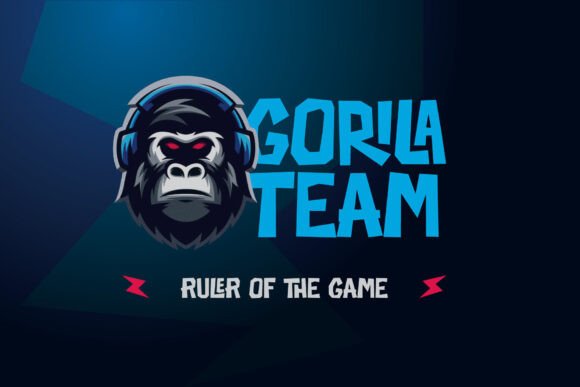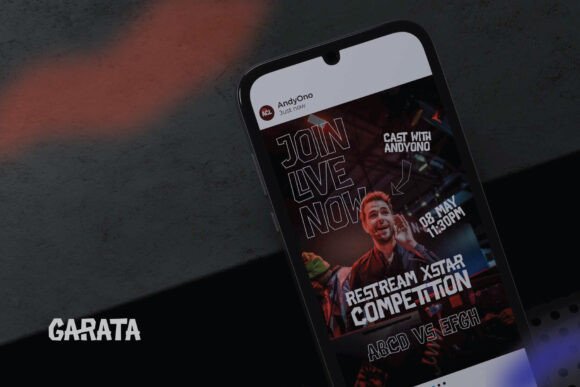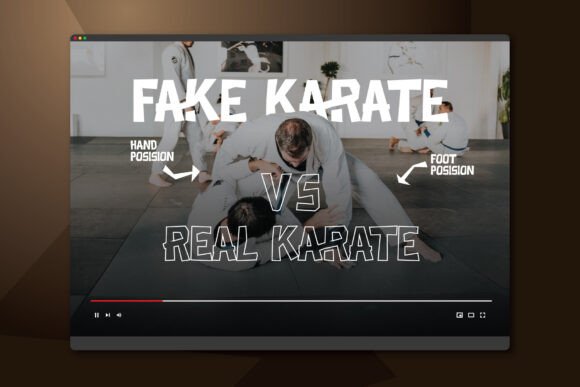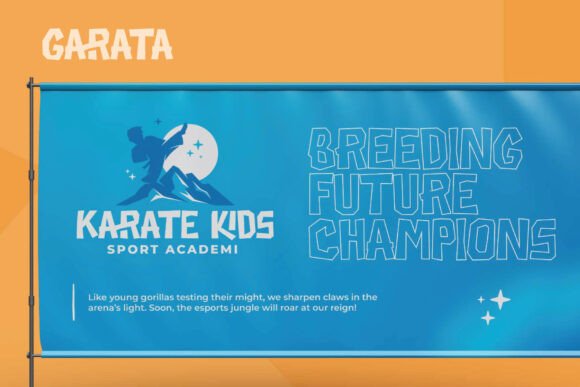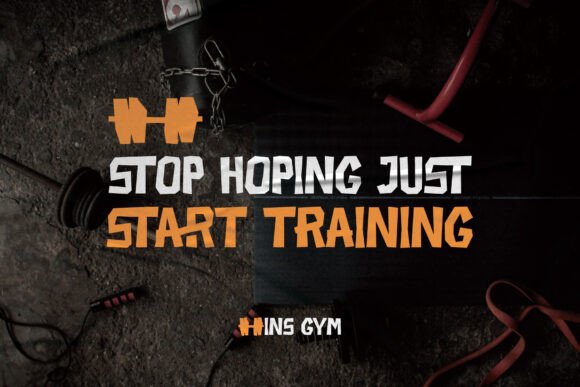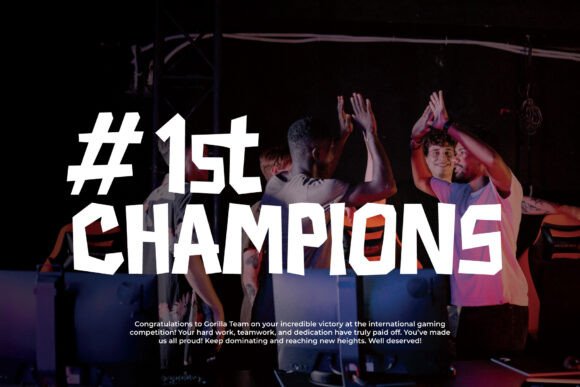
Unleash the Power of Garata Font: Elevate Your Designs with a Bold and Abstract Display Font
Are you tired of using the same old fonts in your designs? Do you want to add a touch of energy and impact to your projects? Look no further than the Garata Font. This bold, abstract display font is built for creating striking visuals that demand attention. Its unique angled forms and chopped character shapes give off a powerful, athletic vibe that’s perfect for sports branding, esports teams, poster headlines, apparel design, and action-themed media.
The Power of Garata Font
Garata Font is not just another font – it’s a statement piece. Its bold and abstract design makes it perfect for creating fierce team logos, edgy event posters, and cutting-edge streetwear brands. The font’s unique angled forms and chopped character shapes give it a dynamic, high-energy feel that’s sure to grab attention. Whether you’re a designer, craftsperson, or simply someone who loves to create, Garata Font is the perfect tool to take your projects to the next level.
What Makes Garata Font So Special?
So, what sets Garata Font apart from other fonts? Here are just a few things that make it so special:
- Bold and Abstract Design: Garata Font features a bold and abstract design that’s perfect for creating striking visuals.
- Unique Angled Forms: The font’s unique angled forms give it a dynamic, high-energy feel that’s sure to grab attention.
- Chopped Character Shapes: The chopped character shapes add a touch of ruggedness and edginess to the font.
- Athletic Vibe: The font’s athletic vibe makes it perfect for sports branding, esports teams, and action-themed media.
Perfect for Designers and Craftspersons
Garata Font is perfect for designers and craftspersons who want to add a touch of energy and impact to their projects. Whether you’re creating a logo, poster, or apparel design, this font is sure to deliver. Here are just a few ways you can use Garata Font:
- Sports Branding: Use Garata Font to create fierce team logos and branding materials.
- Esports Teams: The font’s athletic vibe makes it perfect for esports teams and gaming-related projects.
- Poster Headlines: Use Garata Font to create striking poster headlines that demand attention.
- Apparel Design: The font’s bold and abstract design makes it perfect for apparel design and streetwear brands.
Tips for Using Garata Font
Here are a few tips for using Garata Font:
- Use it Boldly: Garata Font is designed to be used boldly, so don’t be afraid to make it big and bold.
- Experiment with Colors: The font’s bold design makes it perfect for experimenting with different colors and gradients.
- Pair it with Other Fonts: Garata Font pairs well with other bold and abstract fonts, so feel free to experiment with different combinations.
In conclusion, Garata Font is a powerful and versatile font that’s perfect for designers and craftspersons who want to add a touch of energy and impact to their projects. Its unique angled forms and chopped character shapes give off a powerful, athletic vibe that’s sure to grab attention. Whether you’re creating a fierce team logo, an edgy event poster, or a cutting-edge streetwear brand, Garata Font delivers unmatched strength and visual punch.